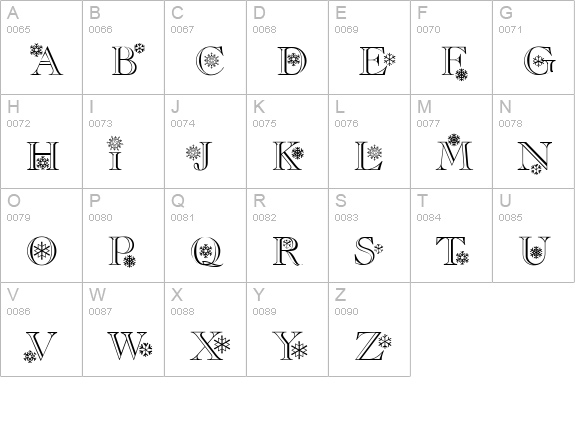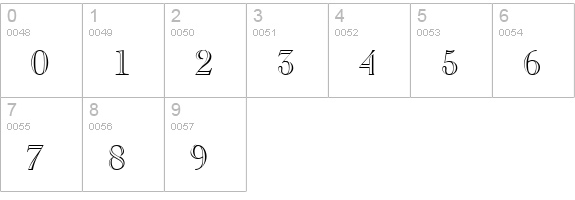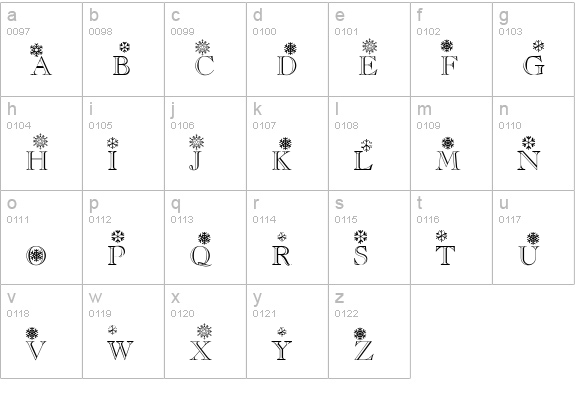
Flakes Font Details
Introducing Flakes font, a captivating and versatile typeface that brings a touch of elegance to any design project. With its delicate strokes and intricate details, Flakes font is a true masterpiece, capturing attention and leaving a lasting impression. This font is not only visually stunning but also highly functional, offering a wide range of styles and weights that allow for endless creativity. Whether you're working on a logo, branding materials, or a website design, Flakes font is sure to elevate your work to new heights. What's even better is that Flakes font is available for free! Yes, you heard it right. You can download this incredible font without spending a dime. Simply visit FontsMarket.com and discover the world of Flakes font for yourself. With just a few clicks, you'll have access to this exceptional typeface, ready to enhance your projects and make them stand out. So why wait? Don't miss out on the opportunity to add Flakes font to your font collection. Download it today and unlock a world of endless possibilities. Let Flakes font be the secret weapon that takes your designs from good to extraordinary.